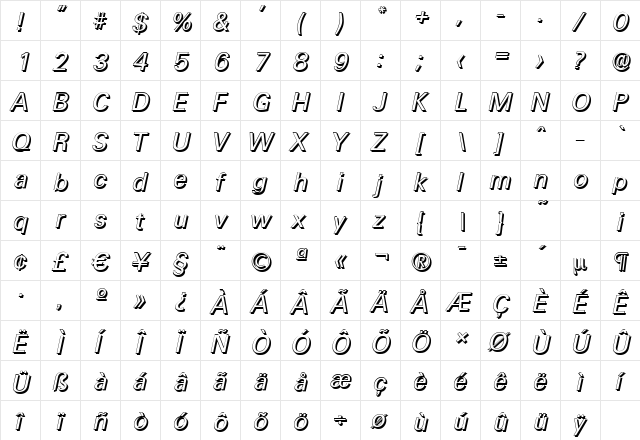
UltimateShadow Italic
Design Context for UltimateShadow Typeface
UltimateShadow is built around its visual character rather than neutral utility — its distinctive forms are designed to make an impression at display sizes. Its italic angle brings a sense of urgency and motion to the letterforms.
Font Pairing: Pair with a clean neutral sans-serif for body copy to let UltimateShadow's character lead without overwhelming the composition.
Pro Tip: Treat UltimateShadow as the centrepiece of your typographic hierarchy. One strong heading set in a decorative face can carry an entire layout.